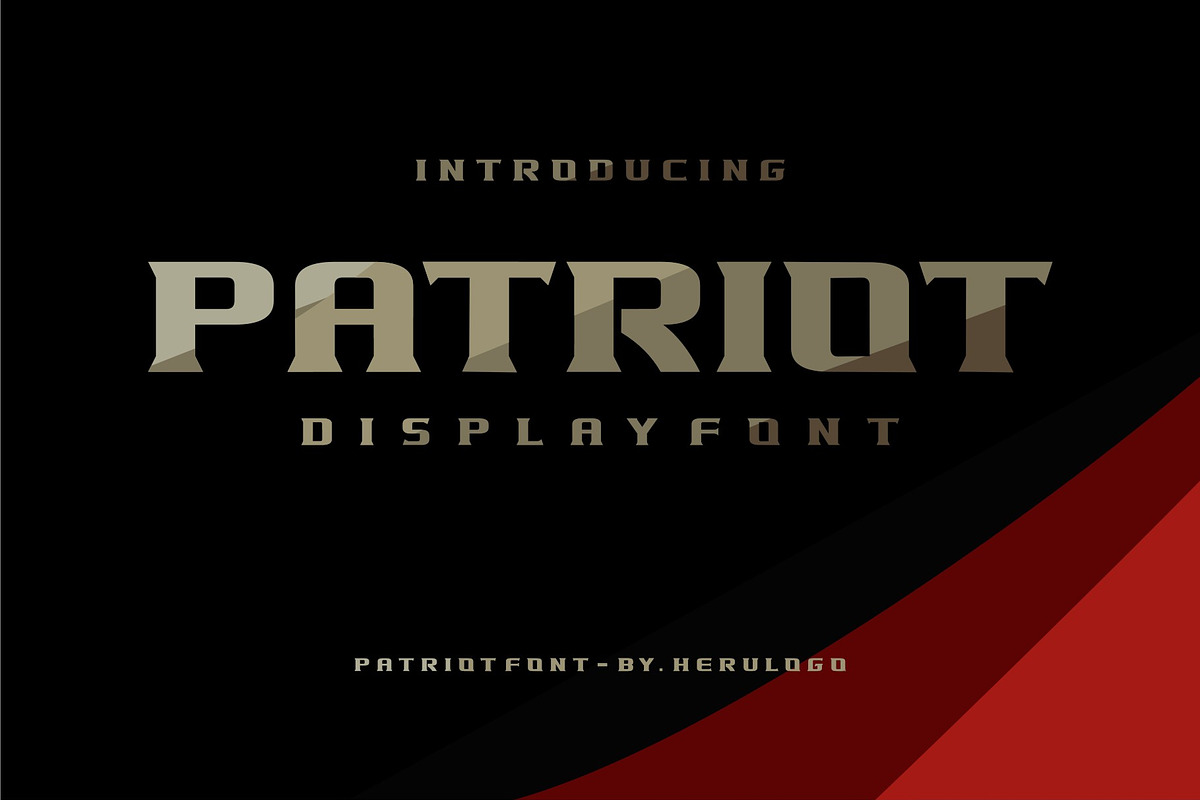
Police fonts are crafted to convey authority, professionalism, and the strength associated with law enforcement. These fonts exude a commanding presence, making them ideal for projects that require a serious and official tone. Whether you’re designing for a police department, creating promotional materials for a law enforcement event, or working on crime-themed content, the right police font can elevate the professionalism of your design.
In this guide, we’ve curated the best police fonts available, each selected for its ability to embody the sense of order and authority that defines police work. From bold, strong letterforms to sleek, official typography, these fonts are perfect for any project that demands a touch of professionalism and discipline. Dive into our list to find the ideal typeface to give your work the authoritative edge it needs.
1. Detective – Typewriter Typography
Introducing Detective, the ultimate mechanical typewriter font that beautifully blends classic charm with modern design sensibilities. This font transports users to an era of noir mysteries, where each keystroke echoes the authenticity of vintage typewriters.
With meticulous craftsmanship, Detective adds sophistication and character to any project. Its versatility allows it to complement contemporary design elements, though its vintage aesthetic may not suit minimalist projects.
Embrace the allure of Detective and unlock a world of creative possibilities.
2. Danger Template
Meet Danger Template, the font that captures attention and hearts alike. As a team of passionate design aficionados, we can’t help but rave about this outstanding typeface.
Danger Template is not just versatile; it packs a serious punch! Whether you’re working on themes related to police, sports, corrections, construction, education, or military concepts, this font is an excellent choice. With its bold uppercase letters, numerals, punctuation, and support for accented characters in multiple languages, the creative possibilities are limitless.
We put Peligro Stencil to the test and were blown away by its impact. Its rugged charm and commanding presence convey authority and strength effortlessly. We captured the essence of police and military themes while also showcasing the high-energy vibe of sports events and the structured environment of schools and prisons.
One thing to note: when used at smaller sizes, the stencil design can pose slight legibility challenges. However, these minor quirks are easily overshadowed by the font’s overall magnificence.
So, unleash your creativity with Danger Template and let your designs make an unforgettable impression!
3. Rouhtem Stencil-Military Gaming Font
Elevate your creative projects with Rouhtem Stencil, the display sans serif font that can transform any design. This versatile typeface adapts effortlessly to logo branding, editorial layouts, stationery, and even nostalgic 80s themes, leaving a striking impression.
With its defined edges and distinctive letterforms, Rouhtem captures intensity and vigor, embodying military precision—perfect for sports racing themes and supercar brands. Its bold presence also shines in music posters, modern ads, and invitations, ensuring your work stands out.
While Rouhtem’s boldness may not fit every aesthetic, if you aim to make a strong statement and memorable impact, this font is your go-to choice.
4. Time Bomb – Army Display Font
Discover Time Bomb, a unique stencil font with rounded shapes that revolutionizes army-themed projects. Its striking and authoritative presence captures the essence of military strength, instantly creating a powerful connection.
This font is perfect for captivating mediums such as magazines, posters, movie titles, and YouTube covers, appealing to a youthful and adventurous audience. Time Bomb seamlessly integrates with popular design software like Adobe InDesign, Photoshop, and Illustrator, as well as Microsoft Word, ensuring accessibility for all creatives.
After thorough testing on both PC and Mac platforms, Time Bomb has proven to be glitch-free and reliable. Its rounded stencil design achieves a remarkable balance of ruggedness and elegance, with meticulously crafted characters that draw attention with bold lines and captivating curves. This typeface undeniably grabs the eye and sparks creativity.